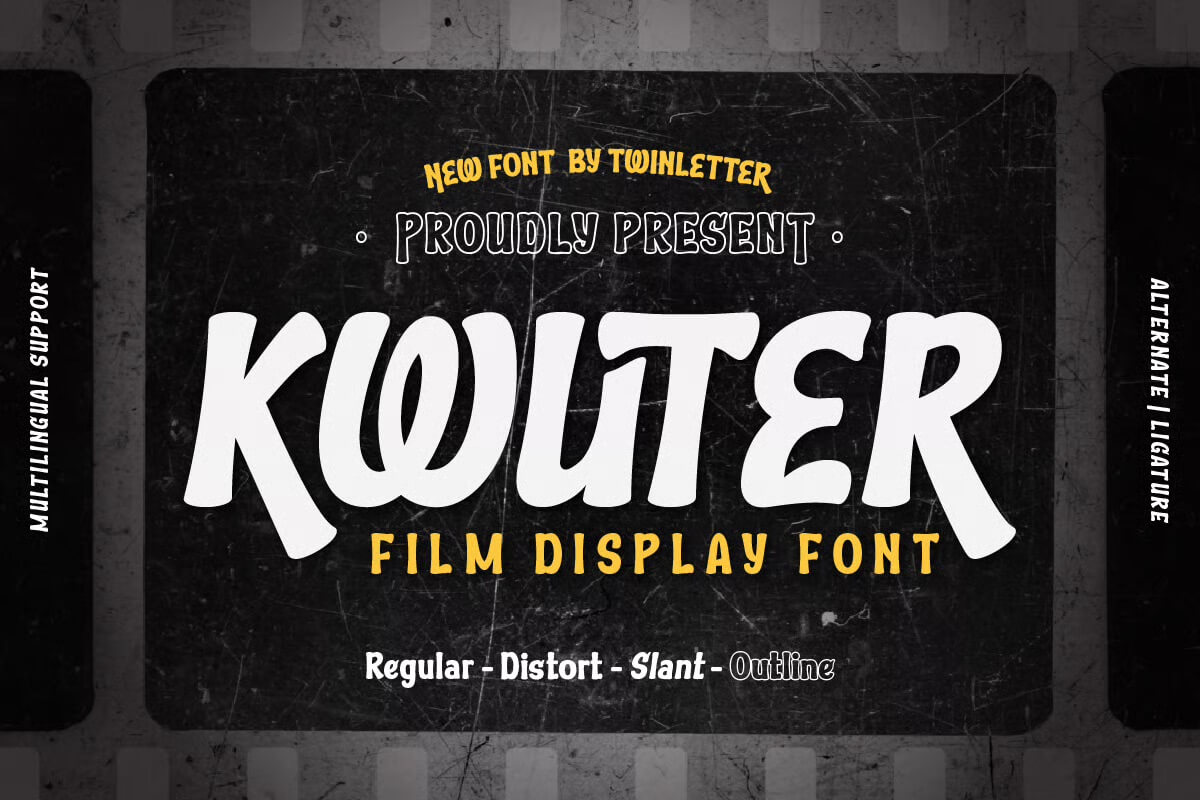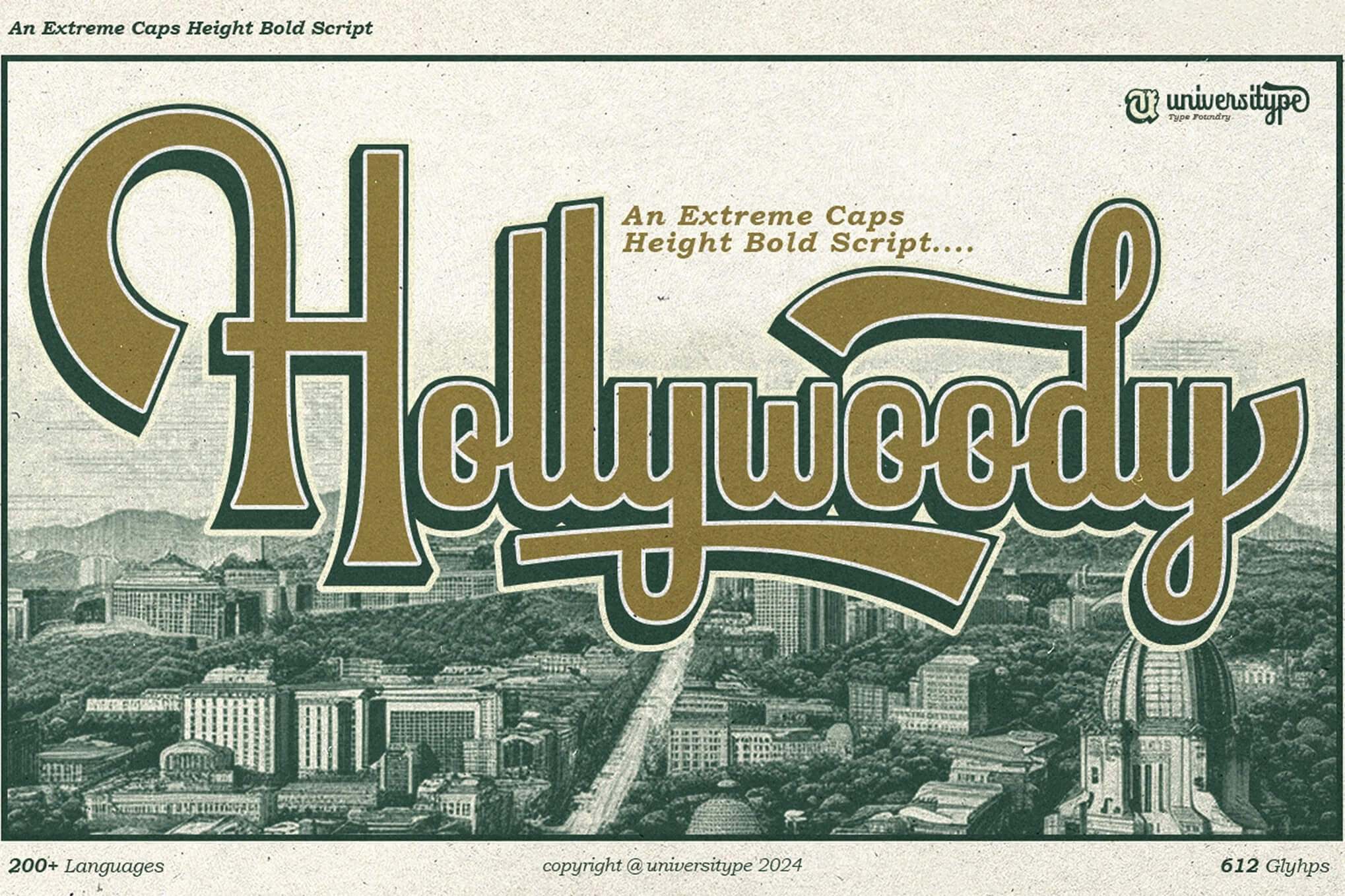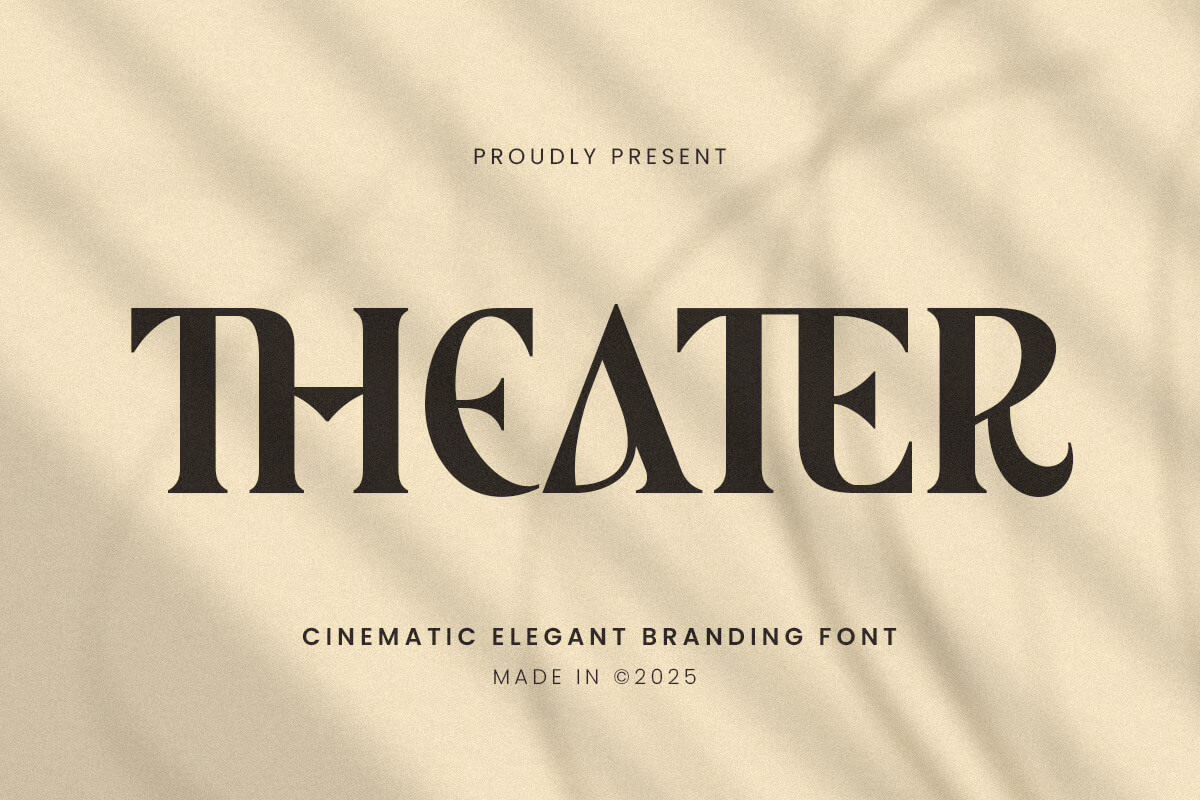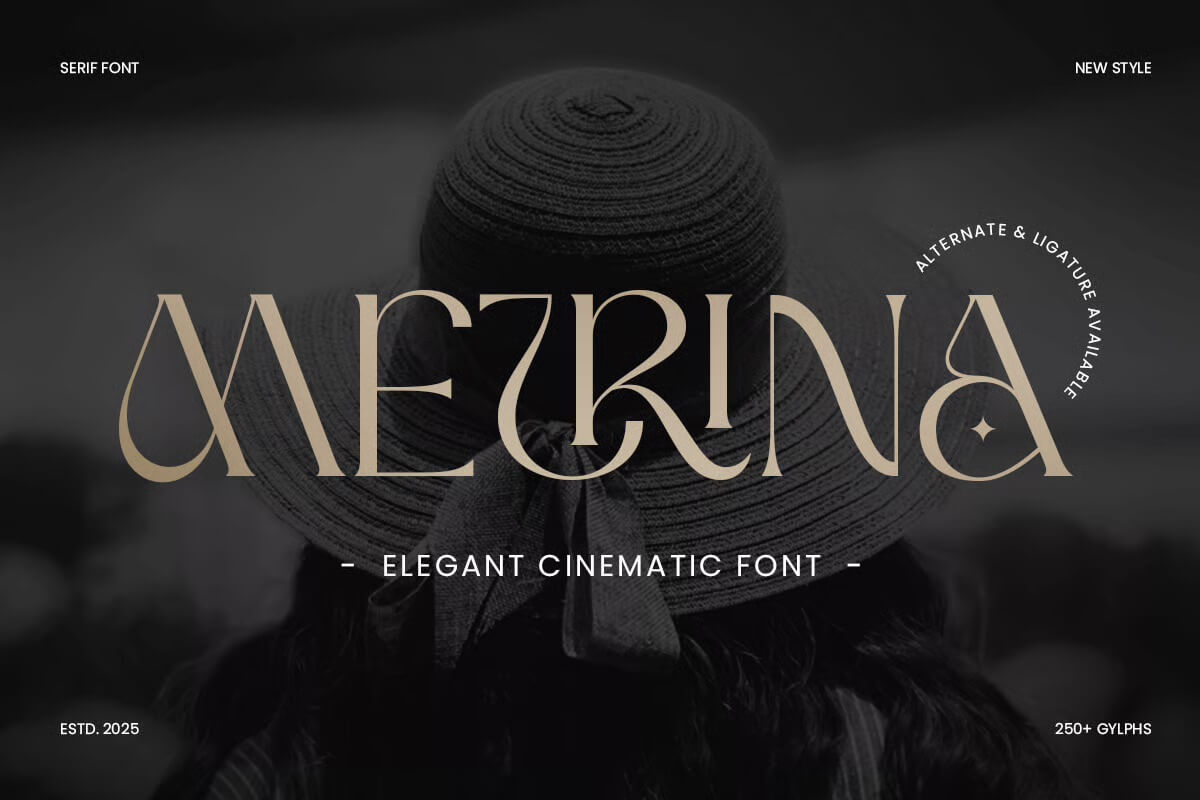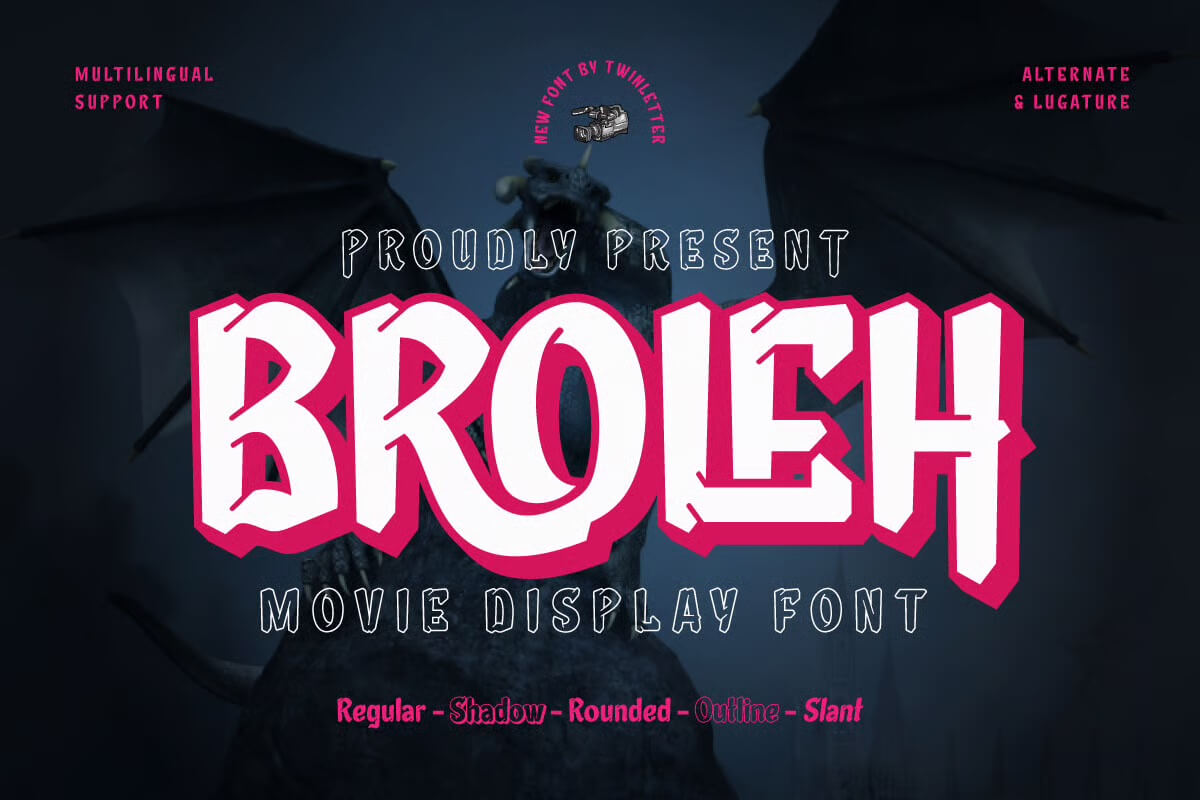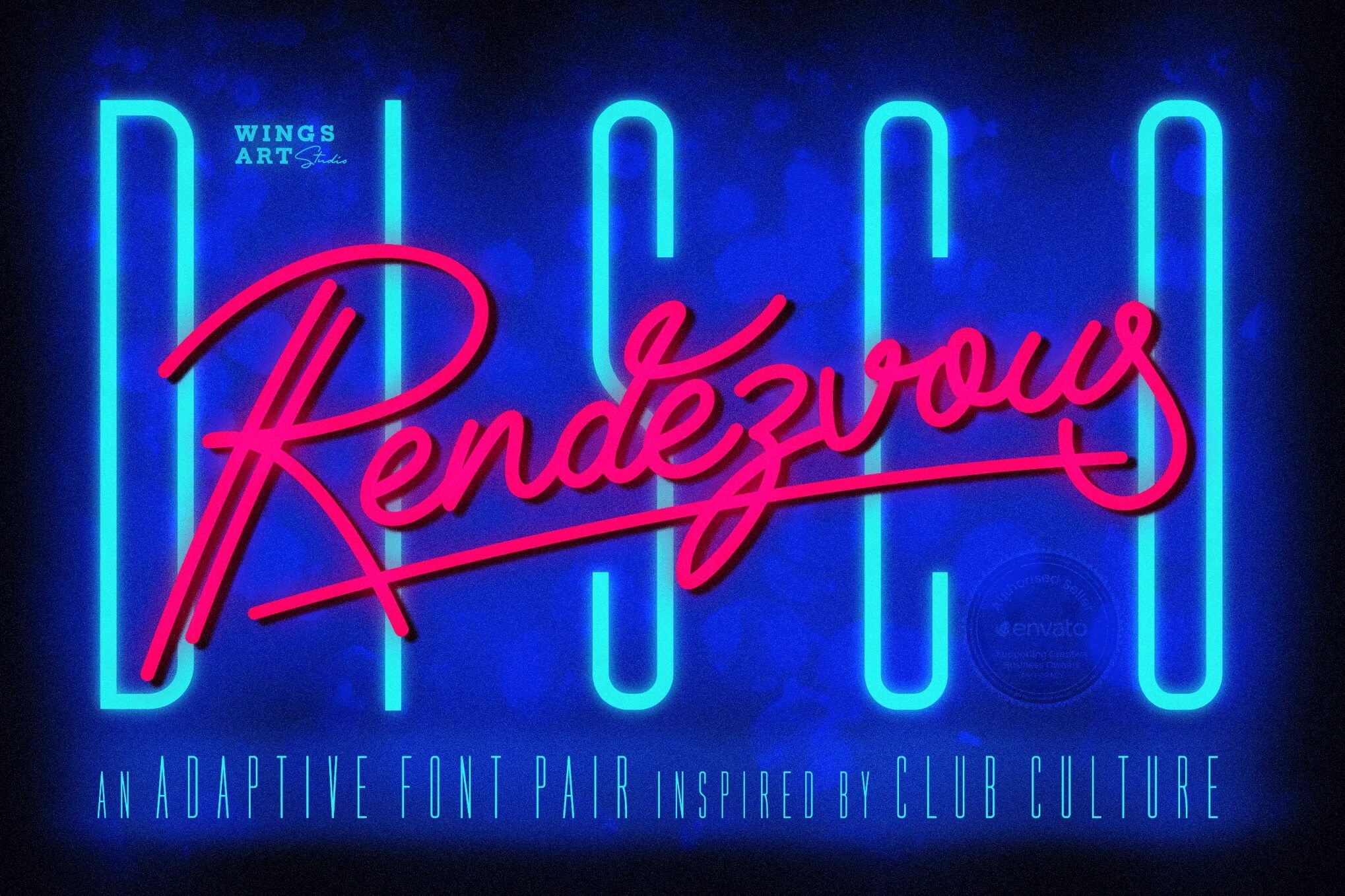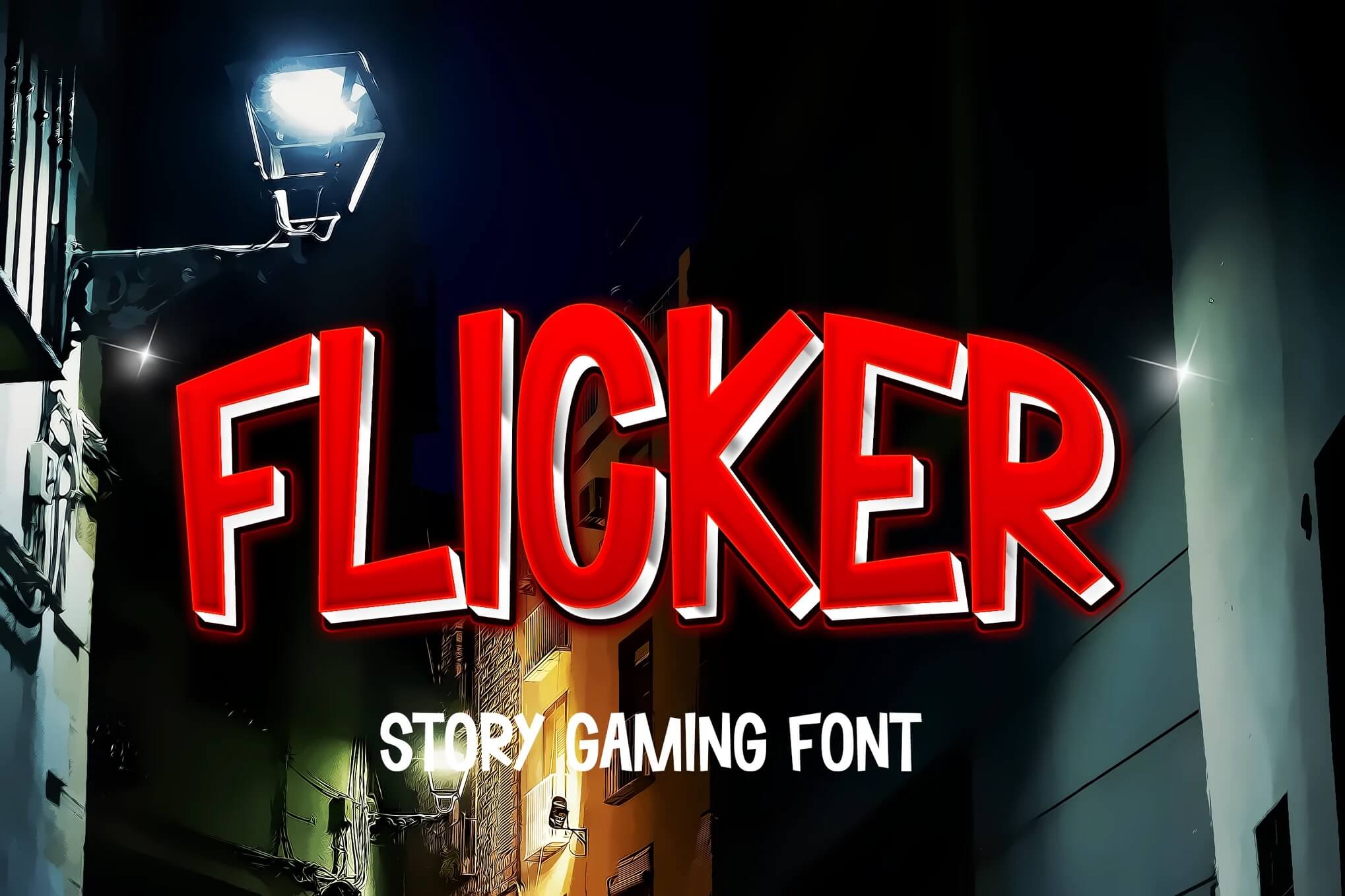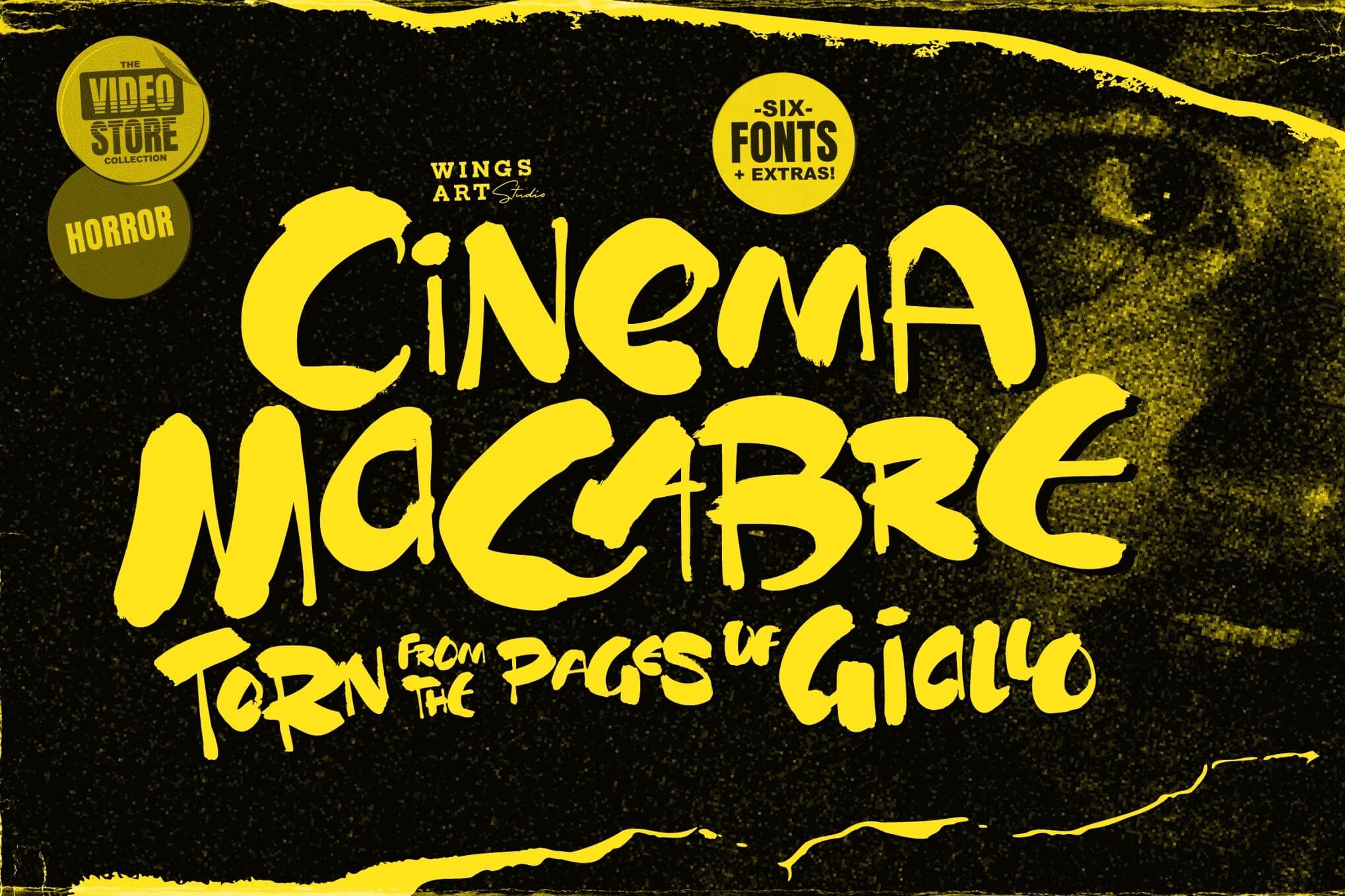
7+ Movie Night Fonts: Explore Cinema, Theatre & Poster Typography
Movie fonts carry within them decades of film history, hinting at tales of adventure, beauty or heart-stopping thrillers.
Whether you’re working on a film, making a poster or simply want to give your creations Hollywood glitz, knowing these fonts can turn your designs from ‘meh’ to magnificent.
A red and white popcorn box with filmstrip, promoting movie night fonts for cinema and theater poster typography exploration.
This guide will take you through the ins and outs of theatre fonts. We shall look at where you can find them, how to select one suitable for your purpose, and what makes these typefaces feel as if they belong on the screen.
I’ve spent years working as a graphic designer with these fonts and have a lot of knowledge to impart about what works in practice versus how it seems in theory.
Top Movie Night Fonts
Kwuter – Film Display Font
Promotional poster featuring "Kwouter" film display font, highlighting styles: Regular, Distort, Slant, Outline. Multilingual support, alternate ligature showcased.
Kwuter brings that bold, cinematic energy you need for movie posters and film titles. It’s got this dramatic, artistic vibe with strong letterforms that really pop on screen.
Perfect when you want your design to feel like opening night at the theater, with all the Hollywood glamour packed into one striking typeface.
Hollywoody – An Extreme Caps Height Script
Vintage style text "Hollywoody" overlays a detailed cityscape illustration with buildings nestled among trees, showcasing a retro design aesthetic.
Hollywoody brings that classic Hollywood glamour straight into your modern designs. The tall caps and sweeping curves give it serious vintage-movie-theater vibes, perfect for logos, packaging, or anything that needs to make a bold statement.
Plus, with 11 stylistic sets and tons of alternates, you’ve got endless ways to customize it.
Theater – Cinematic Ligature Branding Font
Stylish font advertisement showcasing "THEATER," a cinematic elegant branding font, with a beige background and shadow effects. Made in ©2025.
This cinematic serif font brings old-Hollywood glamour to your projects. Theater features elegant ligatures and sophisticated letterforms that work beautifully for luxury branding, film titles, and editorial design.
It’s got that timeless movie marquee vibe while still feeling fresh and modern.
Metrina – Elegant Cinematic Font
A person wears a wide-brimmed hat. The text "METRINA" and "ELEGANT CINEMATIC FONT" overlays the image with stylish, serif letters.
Metrina is a gorgeous serif font that screams old Hollywood glamour and sophistication.
The elegant curves and refined details make it perfect for luxury branding, film titles, or any project where you want that polished, cinematic vibe. It’s got that timeless appeal that works beautifully for high end designs.
Broleh – Movie Display Font
Promotional image for "Broleh" movie display font. Features a dark, dragon-like figure with text advertising multilingual support and various font styles.
Broleh is a bold display typeface that brings serious cinematic drama to your projects. With its strong, artistic letterforms and striking presence, it’s perfect for movie titles, posters, and anything that needs that Hollywood wow factor.
The font works beautifully across different film genres and includes multiple weights and variations to keep things flexible.
Disco Rendezvous: A Night Club Inspired Script
Neon-themed graphic features bold "Disco" text and cursive "Rendezvous," inspired by club culture, designed by Wings Art Studio.
This font is absolutely giving disco fever vibes with its neon sign aesthetic. The script style looks super authentic and handmade, perfect for anything retro or nightclub themed.
It comes paired with a sleek sans serif that complements it beautifully. The OpenType features let you customize characters and ligatures so your designs never look repetitive.
Flicker – Story Gaming Font
A vibrant, colorful design featuring the text "FLICKER" in bold red with "Story Gaming Font" in white, against an urban night scene.
This bold display font brings serious thriller vibes with its chunky letters and slightly distressed edges.
Perfect for mystery book covers, true crime podcasts, or horror game titles where you want that dark, suspenseful atmosphere. The thick strokes give it great readability even at large sizes.
Cinema Macabre: Horror Fonts Inspired by Giallo
The image features bold yellow text "Cinema Macabre" with a textured background, promoting horror-themed fonts from the Video Store Collection.
This font is pure vintage horror vibes straight from classic Italian Giallo cinema. It’s got that raw, inky brush feel with tons of character variations and custom ligatures to play with.
Perfect for when you need something genuinely creepy and hand drawn looking for your next spooky project.
What Makes a Font Feel Cinematic
Movies use cinematic serifs, which do more than just look pretty. These fonts carry feeling with them.
Consider the bold, tough letters of an action movie poster compared to the graceful, flowing script on a period drama. Before your audience has even read one word each face tells a different story.
Most typical theatrical fonts possess some quality in common: the drama they can put across doesn’t take over. They have style but don’t upstage what’s on them.
Several of these fonts draw on old styles that recall golden-age Hollywood, Art Deco movie theatres, or hand-painted outdoor billboard signs we see walking down Main Street.
They often have a performative aspect, as if the letters were taking center stage rather than just sitting on a sheet of paper.
When making your selection, ask whether the font you’re considering could have been used for something in a 1940s movie theatre or, indeed, a modern multiplex theatre. That instinct is crucial here.
Another observation I’ve made is that they tend to look great in large sizes as well. They were designed to be read from a distance, whether on the face of a building or inside a theater.
This is why they work so well by their boldness for headers and titles, although perhaps not long passages in the actual text body.
Where to Find Great Movie Fonts for Free
The good news: You don’t need a Hollywood budget to access Hollywood-quality fonts. Websites like Fonts 1001 offer thousands of options, free for the taking.
I’ve found some of my favorite typefaces here, hidden throughout pages upon pages of choices. With your basic search, also include words like “vintage”, “retro”, “hello”, or “marquee”.
Because often the perfect font won’t be labeled “cinematographic,” but may just match exactly the mood you are looking for.
I always download a few options and test them with my actual text before I commit to anything. What looks amazing in the preview might not work well with your specific words.
Free does not mean poor quality, but do check their licensing. Most free fonts are fine for personal projects; however, if you are setting up something commercial, make sure the necessary permissions are available.
It’s worth taking five minutes to read the small print. In addition, take a backup of the fonts you love, as websites are reorganized and fonts can disappear. So if you find a gem, store it in your own collection.
How Do You Choose the Best Font for Your Movie Project
It’s the sort of place where a person can really express themselves well. However, the typeface that’s perfect for a horror movie isn’t right at all in a rom-com.
It generally pays to consider the tone you want to strike. Is your project dark and edgy? Whimsical and light-hearted? Serious and dramatic? Then choose a font stirringly like that.
I often make a mood board even before opening up my font library. Collect a few movie posters that you admire from a similar style for your project: Which fonts have they used? You are doing research, not copying.
Look at some patterns and see what works. For instance, action flicks often go with a bold, compressed sans-serif font. Elegant serif fonts with thin strokes will suit a period drama. Horror movies often draw on distressed or gothic modes.
A big mistake I see is people choosing fonts that are too neat or are too much in a trend. Those highly stylized fonts may look great, but if you can’t read the title at a brief glance, you’ve lost people.
And of course, the right typeface for your text makes it just slip past the reader like a slight dust; it should be effortless. None of it competes with what you have to say. It enhances, rather than hinders, the message.
What Cinema Style Should You Explore for Posters
More than any other element, it’s the font you choose that does that job. For posters, I like fonts that have strong character and a lot of contrast. They must jump out against the background on any of these.
The hand-lettered style of type and large display fonts were used on many classic cinema posters of the 1950s and ’60s. These designs were not subtle.
They were meant to grab people’s attention from all over a block away. You can use this power in the design of modern posters as well.
Look for fonts with thick strokes, interesting ligatures, or letter forms that are somewhat different from what you’re used to seeing. These will create visual interest even in designs requiring complex layouts.
Summer blockbusters and other movies of this genre tend to use lettering that’s bolder, more energetic, and just plain bigger than the type in winter releases or indies. They promise fun and spectacle.
If you are designing something like that, go with loud type choices. Get the point across in big letters, bright colors, put as much impact as you can into what may be a one-sheet poster.
Can Serif Fonts Work for Modern Movie Design
Most people think serif fonts look old and stuffy, but that’s not really the case at all. In film design, the right choice of serif typeface signals sophistication, grace, and timelessness.
The periodic drama or literary film often uses serif typefaces: they convey depth and seriousness.
The important thing is to choose a serif font whose style isn’t limited to textbooks. Seek out display serifs that are made especially for headlines. These come with more flair than text serifs.
Their thick-thin contrast can be highly dramatic; they might have little details in the serifs themselves, or proportions that are distinctly stage-like.
Brands like Trajan (think of every historical film ever made) show that serifs can dominate cinema type.
I also like to mix serif and sans-serif fonts in film design. A bold serif for the main credit, clean sans-serif for supporting text.
Hierarchy and readability are established. The mixture of styles makes each element stronger than it would be on its own.
What Download Options Should You Look For
When downloading a font, it’s important to note the available formats. For most projects, you want TrueType (.ttf) or OpenType (.otf).
These two formats work well across different programs and platforms. This is nice because otherwise you’d have to repeat the same text in each program!
Some sites also offer web fonts, which are very useful if you’re creating a site for your films or project. That way, when people view the website on their iPhones, it will display correctly.
But without these web fonts, those same people might end up having to download some other font on their computer, a font that doesn’t look nearly as good as yours does in any case!
Check what weights and styles come with the font. Can you get regular, bold, and italic versions? Multiple choices make for easier designs.
For example, it might be best to use the lighter weight for subtitles but something heavier for your main title. Some free fonts are available only in one weight, so your options may be limited.
Also, take a look at the character set. If your project involves special characters, numbers, or punctuation used in prominent positions, make sure your chosen font can handle them well.
I’ve downloaded wonderful fonts that squared only to find one day the quotation marks are all squashed, and the numbers are not compatible with the letters. Do full checks before making firm decisions on a design.
How Do Creative Fonts Set the Tone for Your Film
When you think about it, the right creative font is an integral part of the film’s overall personality. The movie logos of history also demonstrate this point.
For example, does anyone imagine Star Wars without its characteristic font? That same font is linked with the series. You can’t think Jurassic Park without immediately picturing that world, the typeface used on the film logo always screams ‘dinosaurs.’
When you choose a serif with personality, it cannot only be seen, but also when it is effective to use different fonts and take full advantage of them throughout a whole design а a full-blown typeface design, which creates recognition and puts the audience in an expectant state.
The creative conception of font is not synonymous with complication. Sometimes, simple is the most creative choice.
A large-size, straight font with funky color or texture can often outshine an intricate script lettering. For creative projects outside traditional cinema, the sky is the limit.
You can be more daring in your choice of short films, web series, or independent productions, and take risks that would make major studios blanch. But always make sure your creative choice serves the story, not your ego.
What Makes a Font Look Classic vs Modern
But classic fonts, you see, draw on history. They can be borrowed from art deco structures, early-century Hollywood pictures, mansions, to mid-40s modern designs.
These fonts carry echoes of age, honesty, and timelessness. They suggest your venture has meat and will endure. If you want your movie to feel like an instant classic, throw in fonts based on earlier styles.
Modern fonts are streamlined and generally more geometric, sometimes even minimalist. They tell modern-day stories, feature forward-looking content, or offer brand-new looks.
But modern typography can work well for tech thrillers, science fiction, and today’s dramatic feature films. Such fonts seem to be saying, “This is now happening” or “This is what we may witness in the future!”
Yet here is a more subtle truth: you could use classic fonts in futuristic ways and vice versa. It all depends on context and execution. If you pair modern colors and layout with an old-style font, it feels new.
Another way a modern font can get by with a classic film grain and texture is to achieve depth. Don’t worry too much about pigeon-holing. Trust your instincts and experiment with different mixtures.
Where Can You Browse and Discover Hidden Gems
Not only font websites, but I also find inspiration from all kinds of unlikely sources, Such as old movie house photos, posters about vintage products on Pinterest, or the YouTube film title sequences that flood out in torrents on some days.
When you come across a great font in the wild, there are tools that can help find it for you. Applications such as WhatTheFont let you take a picture of the typeface or upload one from your device to find out its name.
Another thing I’d recommend is following type designers on social media. Many show their work as they go along (it promises to be fascinating and probably quirky at times), give away free fonts now and then, or point out resources you can’t find elsewhere.
Tied closely to this, the typography community is surprisingly generous. Look over their portfolios and see what they’re into: let their excitement infect you
Or the other way round. Forget scripting altogether and begin with a Photoshop document, using InDesign only as an assembly tool for layout and print production.
Open every draft to audience scrutiny every step of the way so it’s set before being sent out electronically, fine-tuning as you go. There’s more than one way to skin a cat in a variable environment like this
Font pairings are worth a reminder, too. Just because a font wasn’t sensational on its own doesn’t mean it couldn’t look amazing next to the right partner.
Sites that display combinations of fonts can offer ideas you’ve never tried before. I keep a log of successful pairings I’ve found in film marketing. When stuck, I will refer to it and adapt the ideas to my current project
How Do You Match Fonts to Different Movie Genres
Each genre has its visual language, and fonts are a huge part of that. Horror films often use distressed, gothic, or hand-drawn fonts that feel unsettling.
There’s usually something slightly off about them, matching the genre’s discomfort. Action films favor bold, aggressive fonts with strong angles.
Romance goes soft, flowing, often script-based. Comedy can be playful, rounded, and approachable.
But here’s where it gets interesting: you can subvert expectations for effect. A horror film with elegant, refined typography creates an unsettling contrast.
A comedy with serious, classic fonts might signal sophisticated humor. These choices tell audiences that your film isn’t following the usual formula. Just make sure you’re breaking rules intentionally, not accidentally.
I create a quick reference chart when I’m working across multiple genres. What fonts typically represent each genre? What’s been done to death?
Where can I find a fresh take that still communicates clearly? This exercise helps me avoid clichés while respecting genre conventions enough that audiences know what they’re getting into.
What Typography Tricks Make Posters More Dramatic
It’s the difference between seeing something dramatic and seeing it as just dull. Make your title text huge, and bigger even. Use the full width of your poster if you can get it without breaking a line.
The right place for line breaks may well be at these numbers, because they’re so easy to remember! Wherever you like: that’s your logo’s location in font size if you care about these things.
Also, readability factors are of great importance. The same font in different colors can tell a completely different story.
Dark colors suggest mystery. Brightest colors suggest money. I always try my fonts in at least five different color combinations before finally circling being glued onto mattes, and text never seems to work out. What looks perfect in black might surely be even better in deep blue or burgundy.
Texture is your secret weapon. A clean font becomes infinitely more interesting with the right texture applied.
Film grain, scratches, halftone patterns, and gradients, if you want to get fancy and make your text look more like a photograph than anything else on screen. These effects draw your typography into the visual world of your film, making it feel real.
As long as you don’t overdo things, that is to say, properly applied text effects will enhance readability and emotional resonance rather than display every possible Photoshop filter under the sun.
Why Should You Explore Beyond the Obvious Choices
Rarely is the first typeface you like the best one for your project. I have found that numbers fifteen, twenty, or thirty are always better than number one.
Sometimes the perfect typeface is buried under dozens of appallingly bad ones. Spend some time really browsing, let your eyes wander without having to make an immediate decision.
You will find choices that never would have occurred to you, hastening through the first page of results.
Also, don’t restrict yourself to fonts explicitly designed for cinema or theater. Sometimes a font designed for something completely different is just right for your movie.
In my film designs, I’ve used fonts created for restaurants, old-timey advertisements, and book covers. The burning question is whether it gives the right feeling, not whatever it originally might have been intended for that you get.
Keep pushing your boundaries. Try a typeface that reads slightly strangely for you. Try something odd. You can always go back to your safe choice, but you might find something brilliant.
The most memorable movie typography often comes from designers who took risks and trusted their instincts.